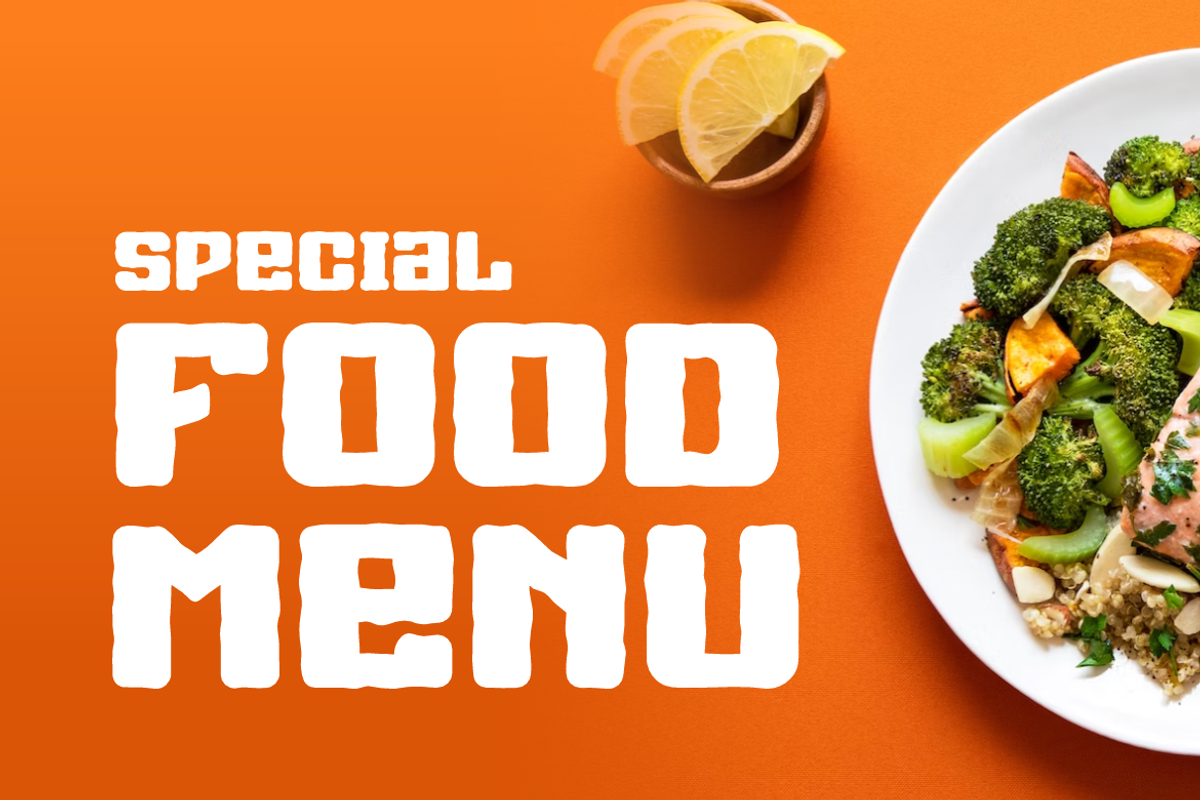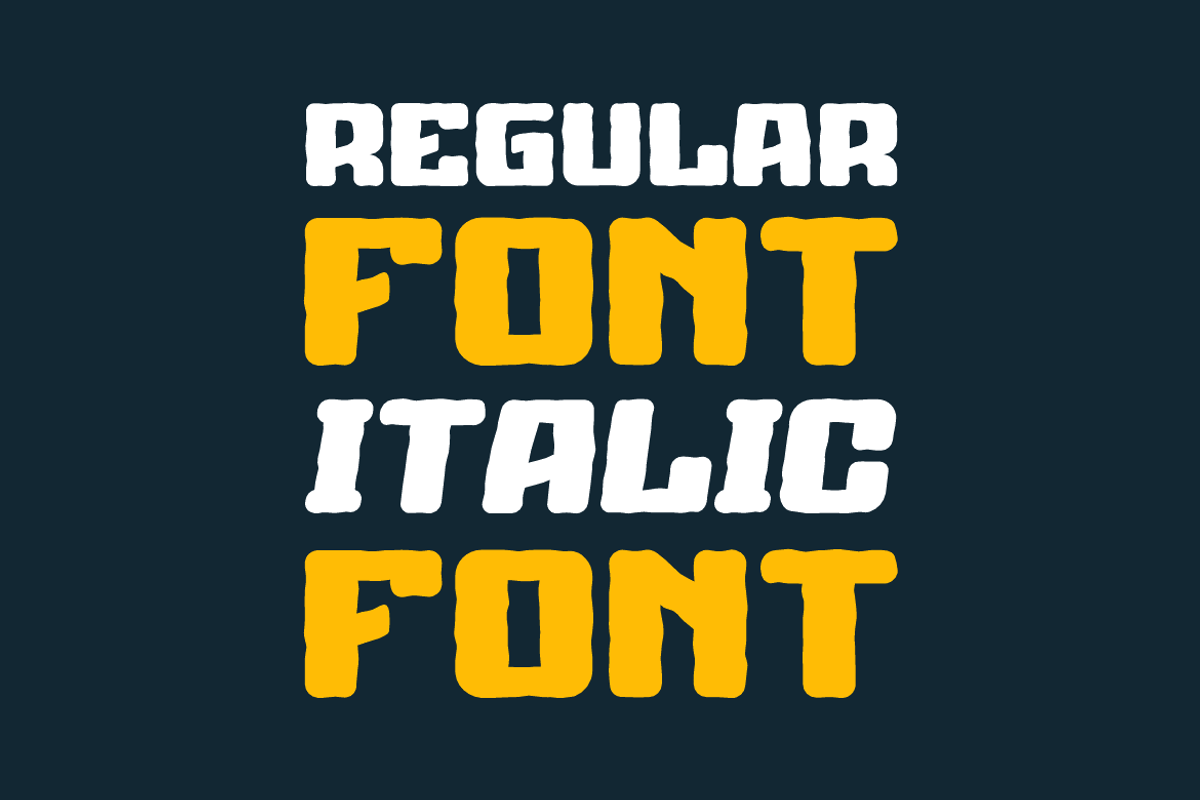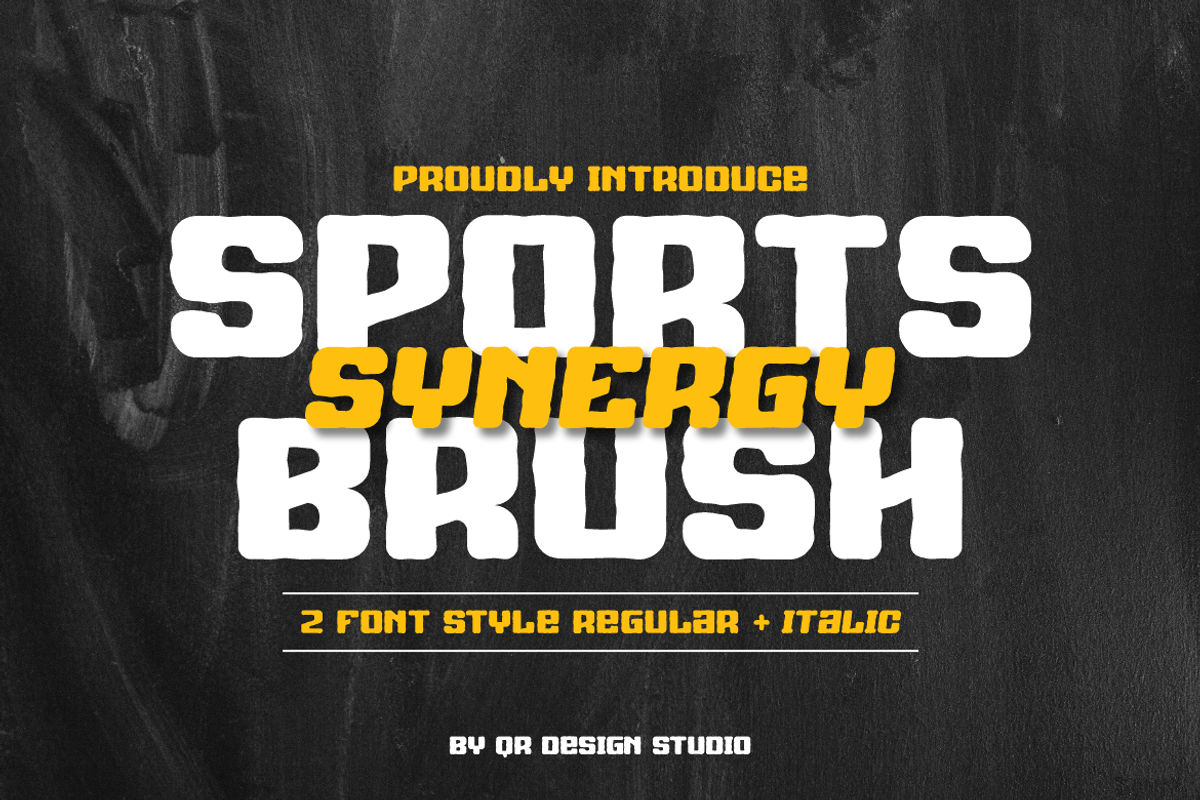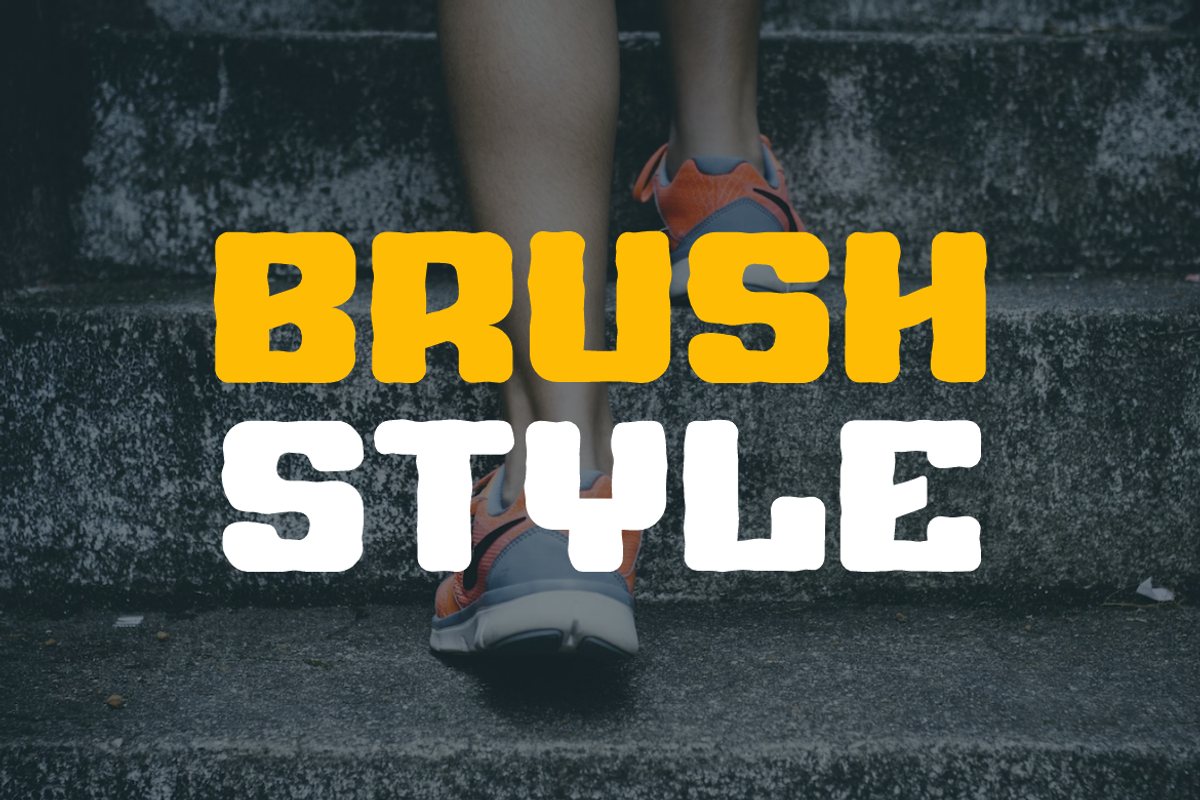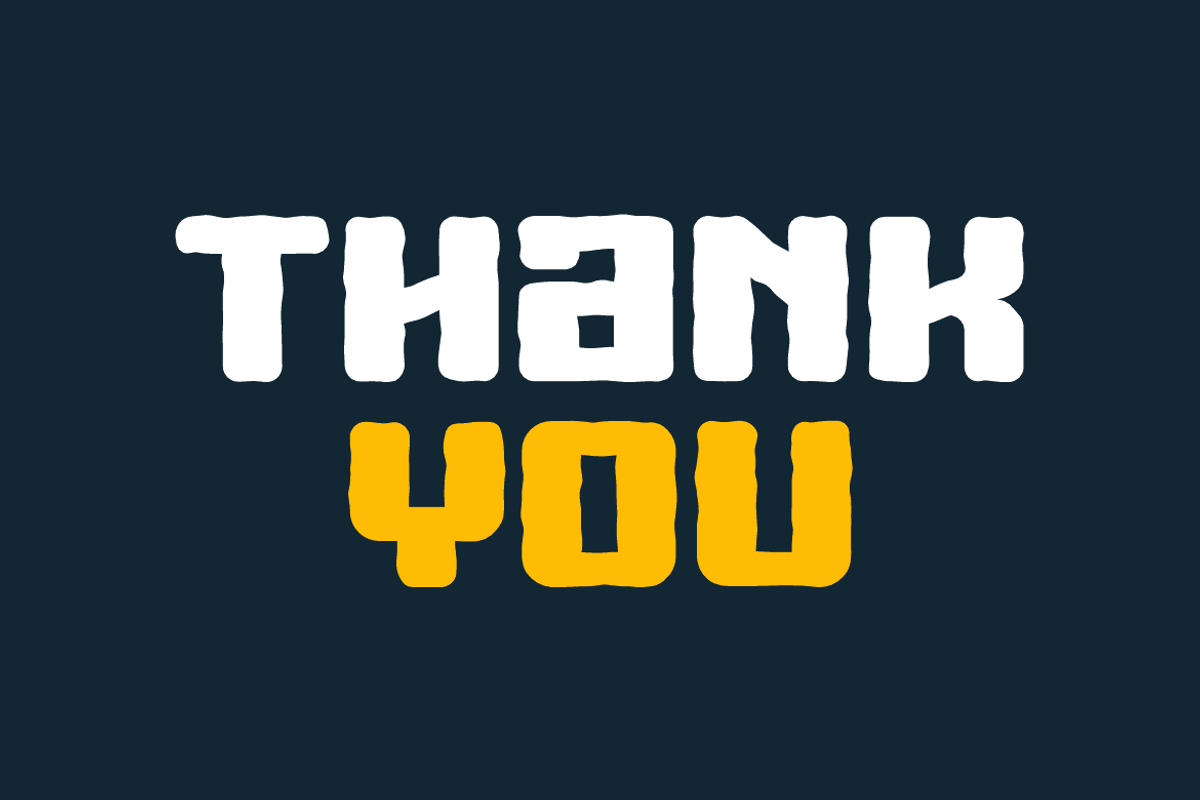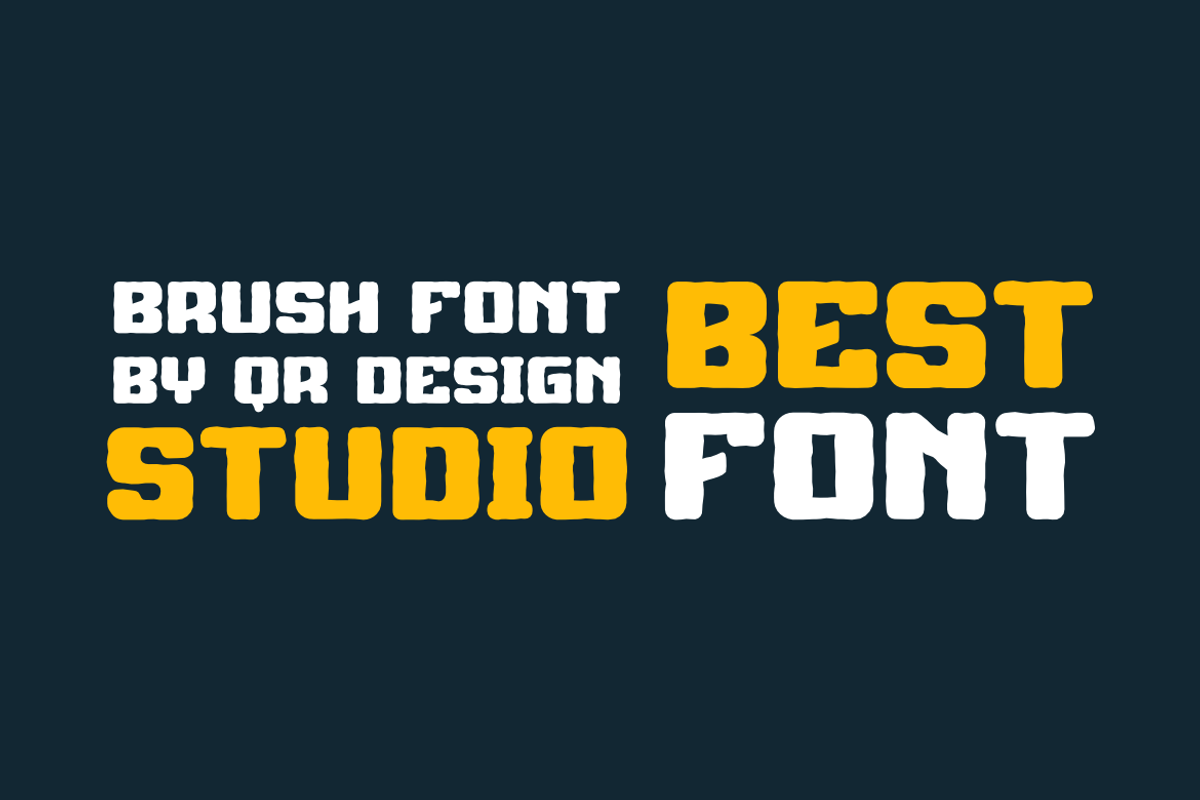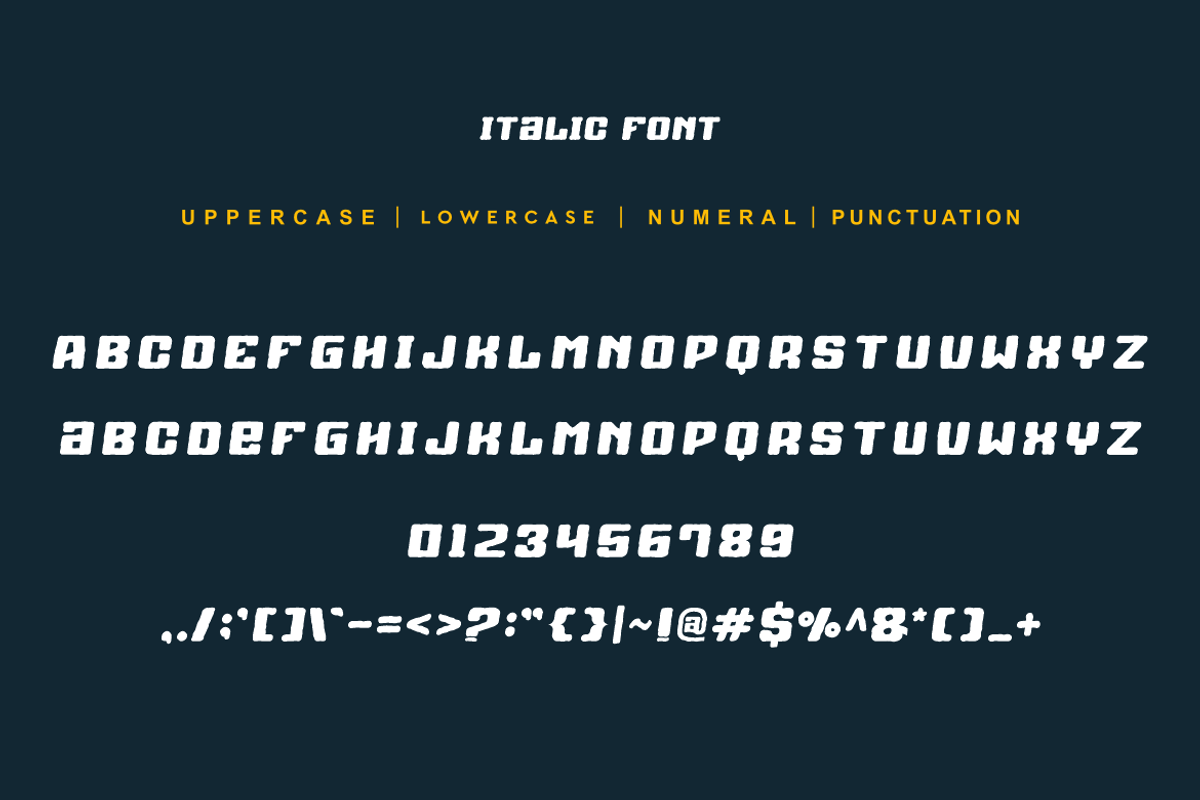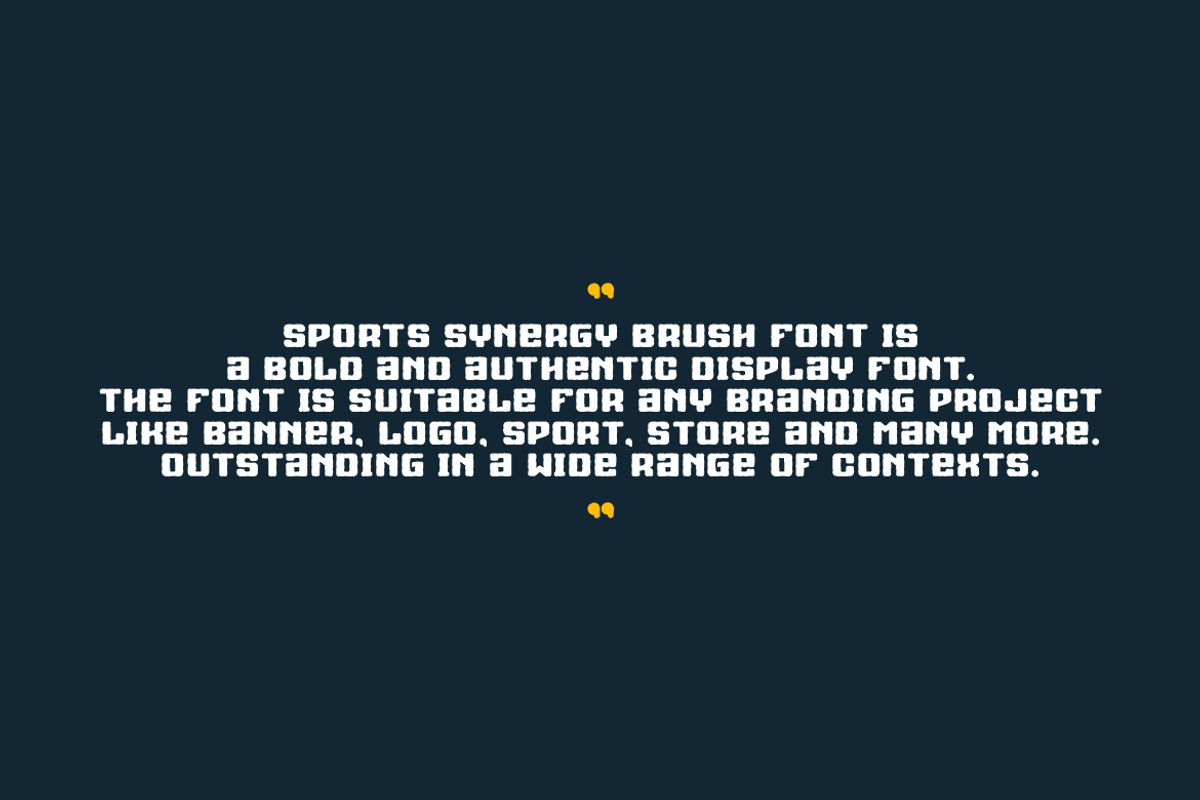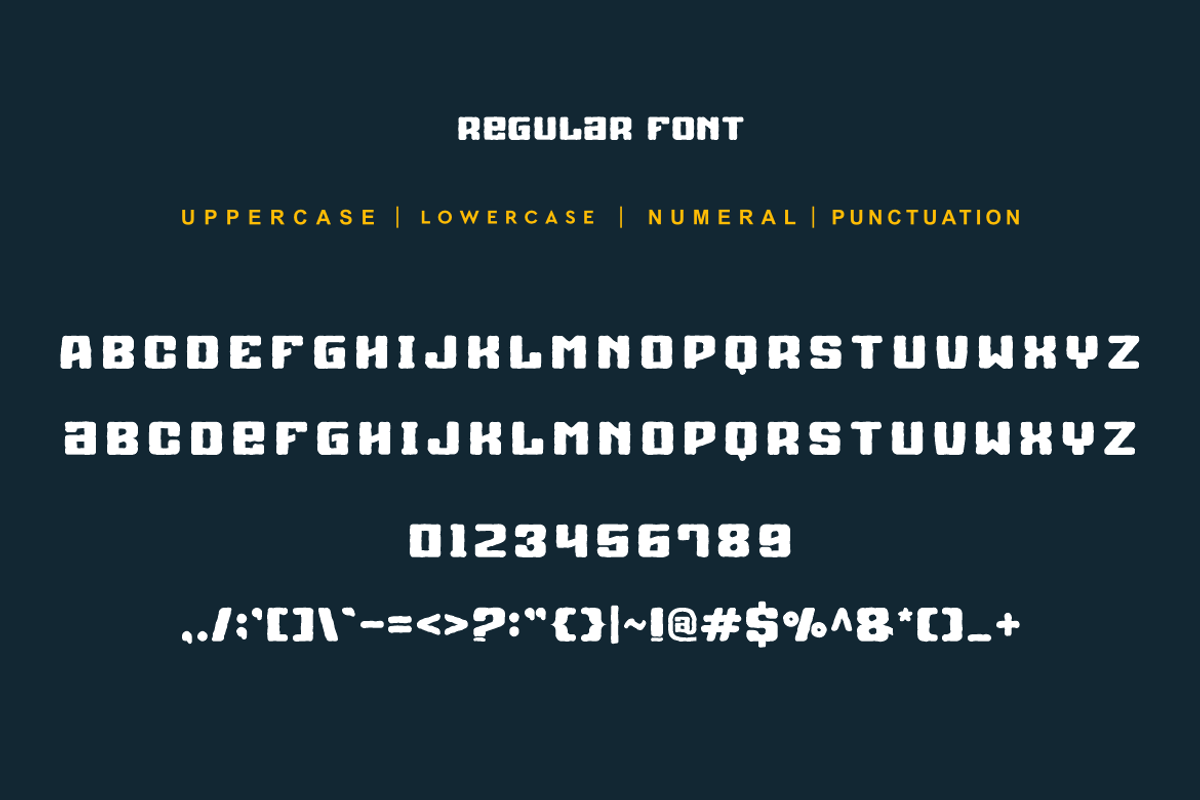
Sports Synergy Brush
Sports Synergy Brush Font is a bold and authentic display font. The font is suitable for any branding project like logo, sport, food, and many more. Outstanding in a wide range of contexts.